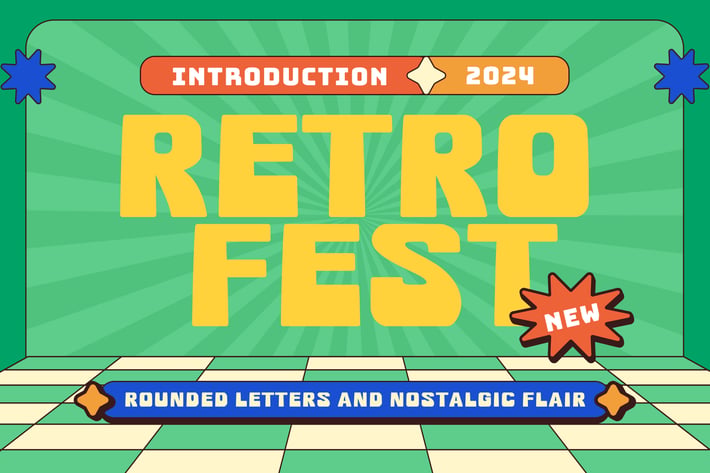
Retro Festival Font - Retrofest
Retrofest - Retro Festival Font
Introducing Retrofest - Retro Festival Font - a Modern Professional Typeface excellent used for Heading or Title, Logotype, Merchandise, Clothing, Magazine, Corporate, Retro Festival, Vintage Event, Ticket and many more.